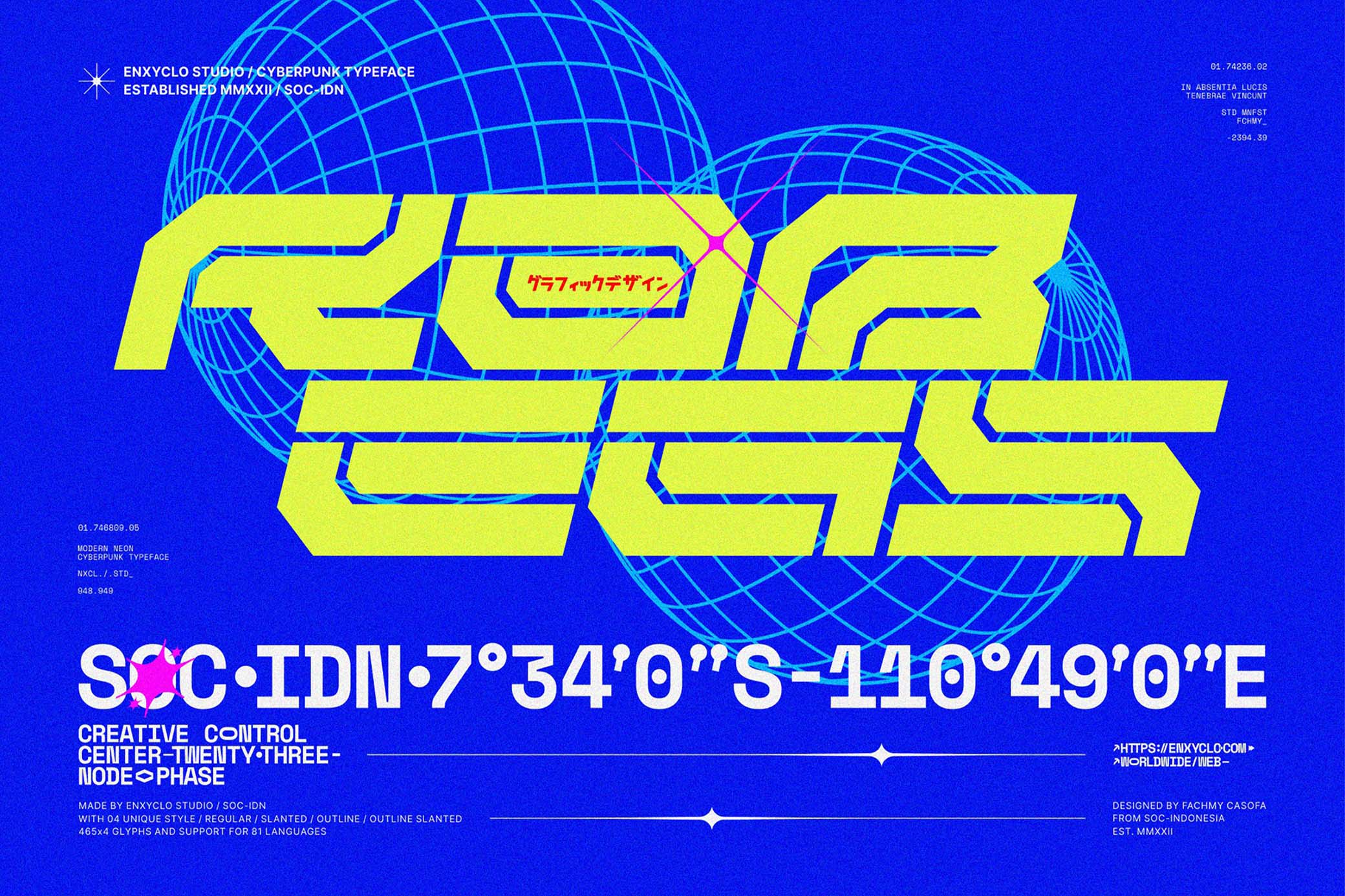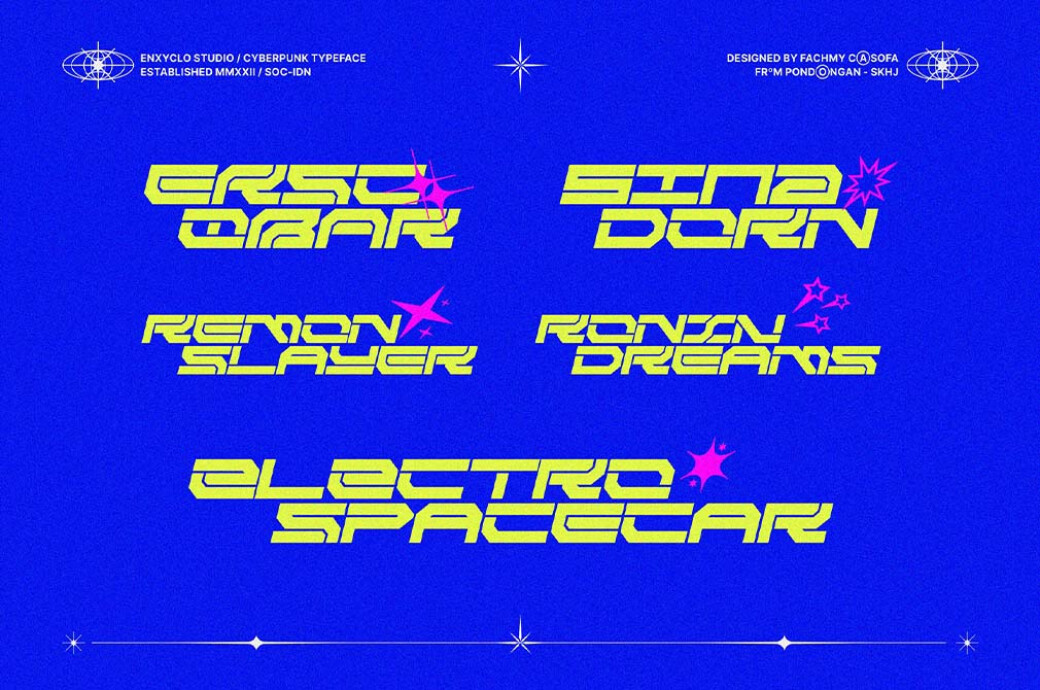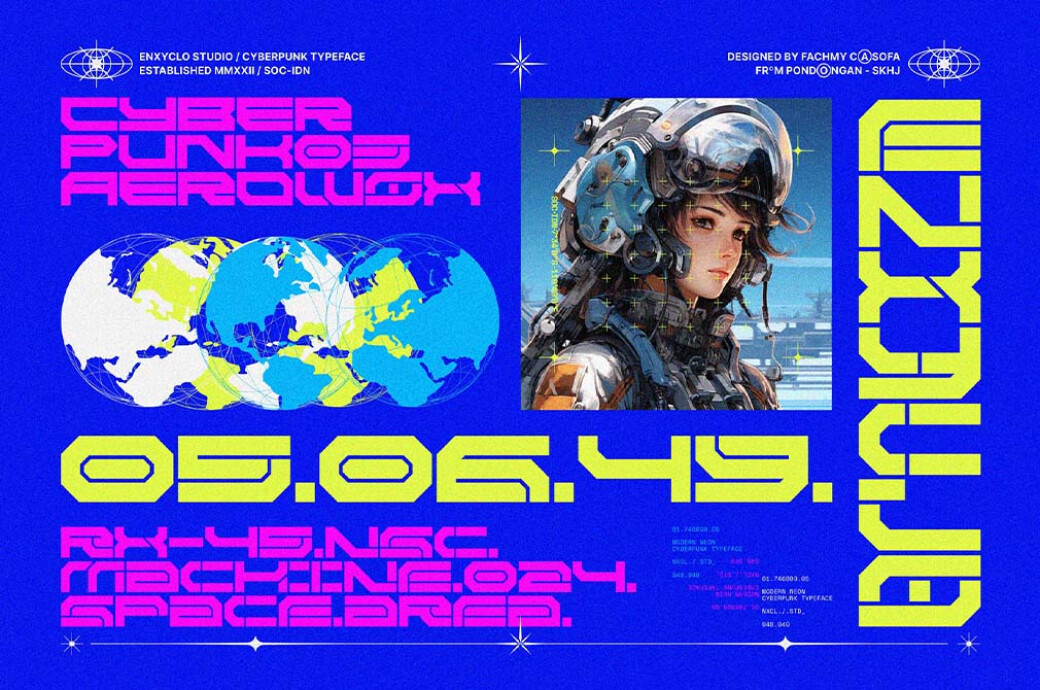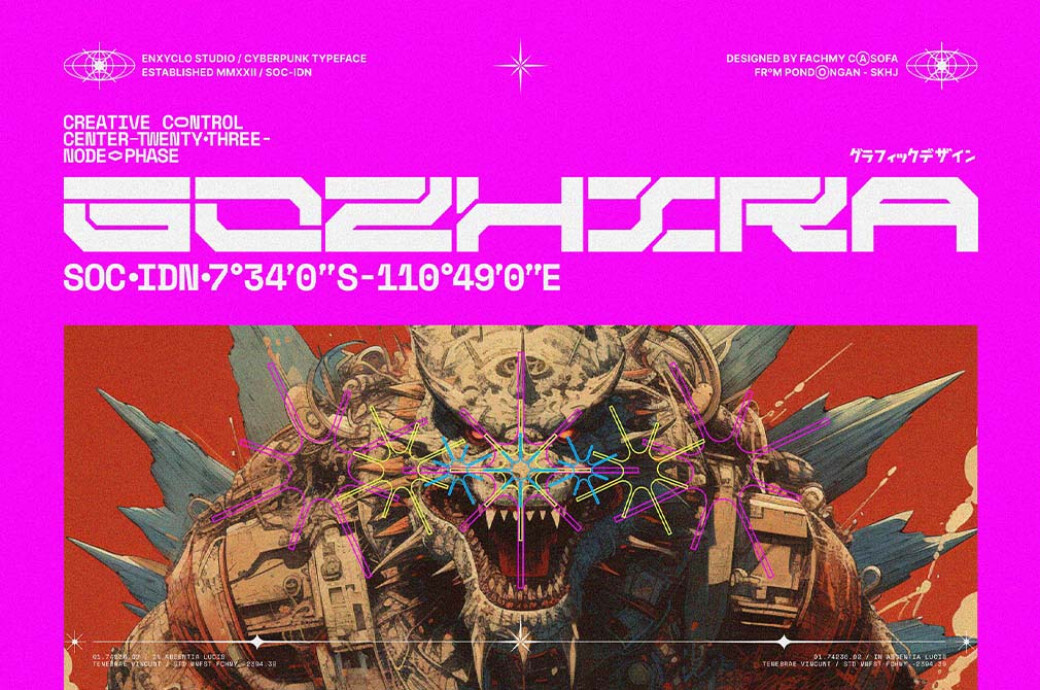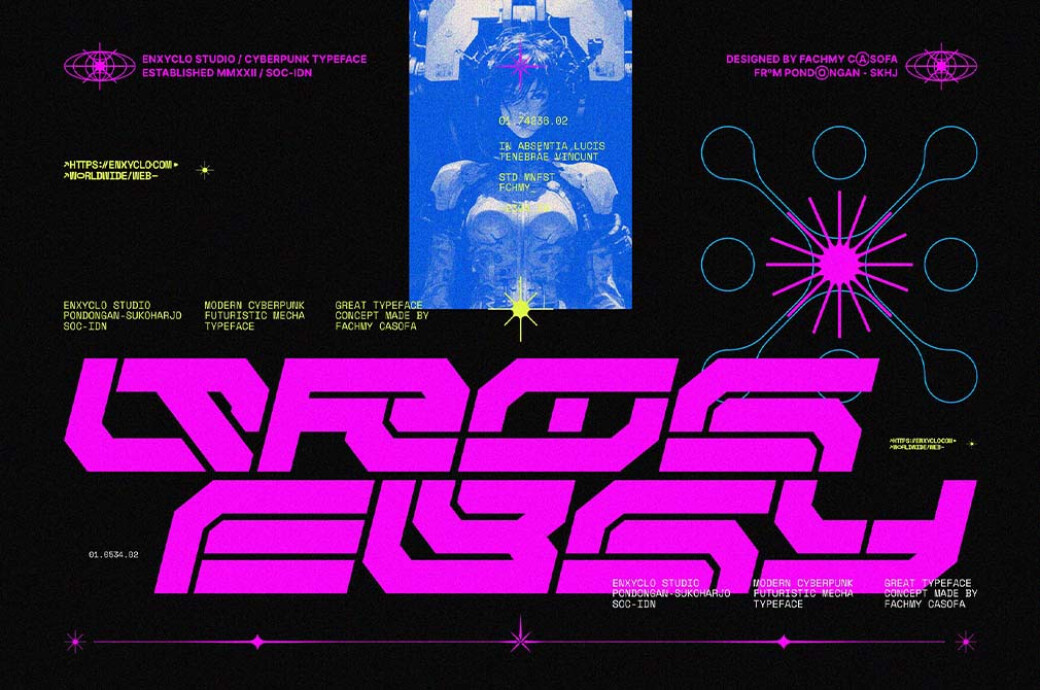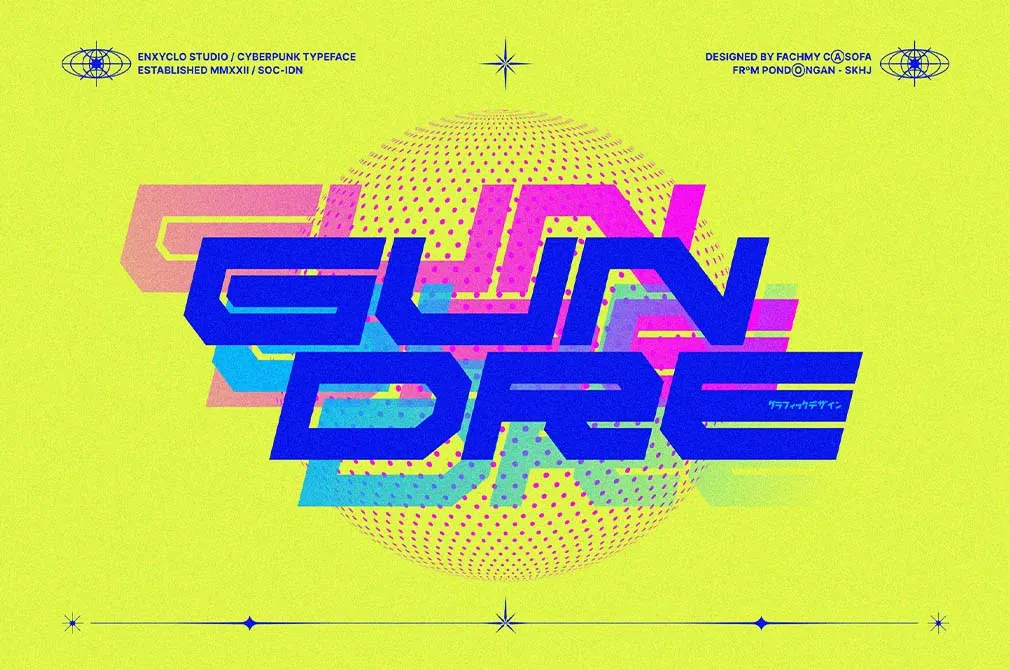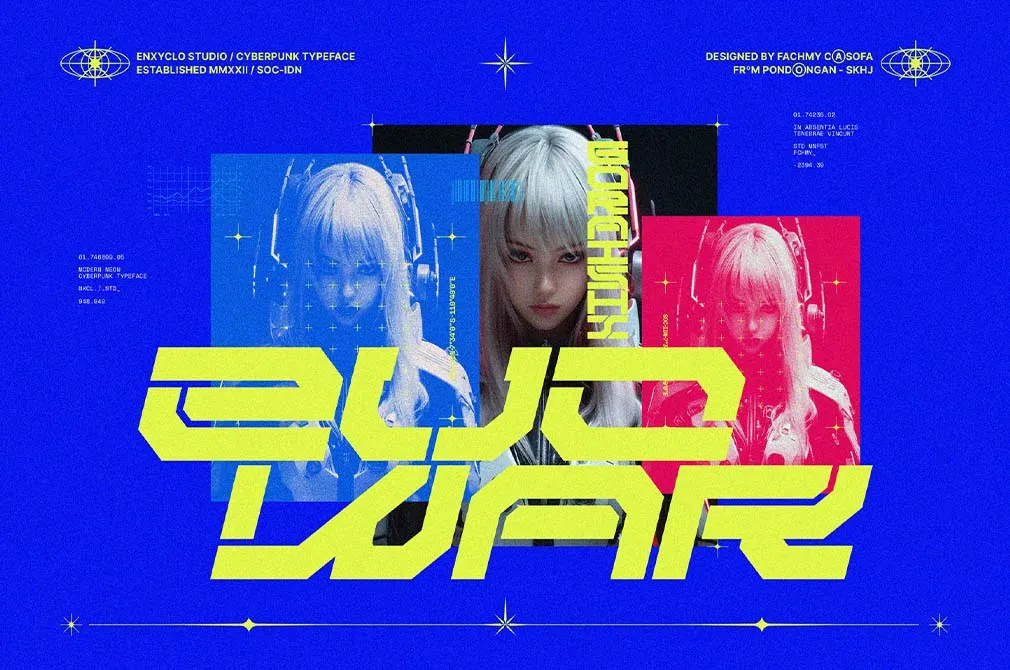
NCL RABEGS | Cyberpunk Font
Just an assumption: what if there's a font that combines 90s sports logo vibes (those geometric ones) with cyberpunk? And would the machines enjoy it if they rise someday?
Cyberpunk. Mecha. Tecno. Call NCL RABEGS whatever you like, it will never affect its essence. It's a robust display type with distinct geometrical elements and broad letters with a sci-fi touch. There are four styles: Regular, Slanted, Outline, Outline Slanted. They make a total of 1860 glyphs**(465** per style): a complete character set, symbols, international support, and stylistic sets. NCL RABEGS is your tech fellow for any relevant task or in case you need the one-and-forever font for a new era of machines